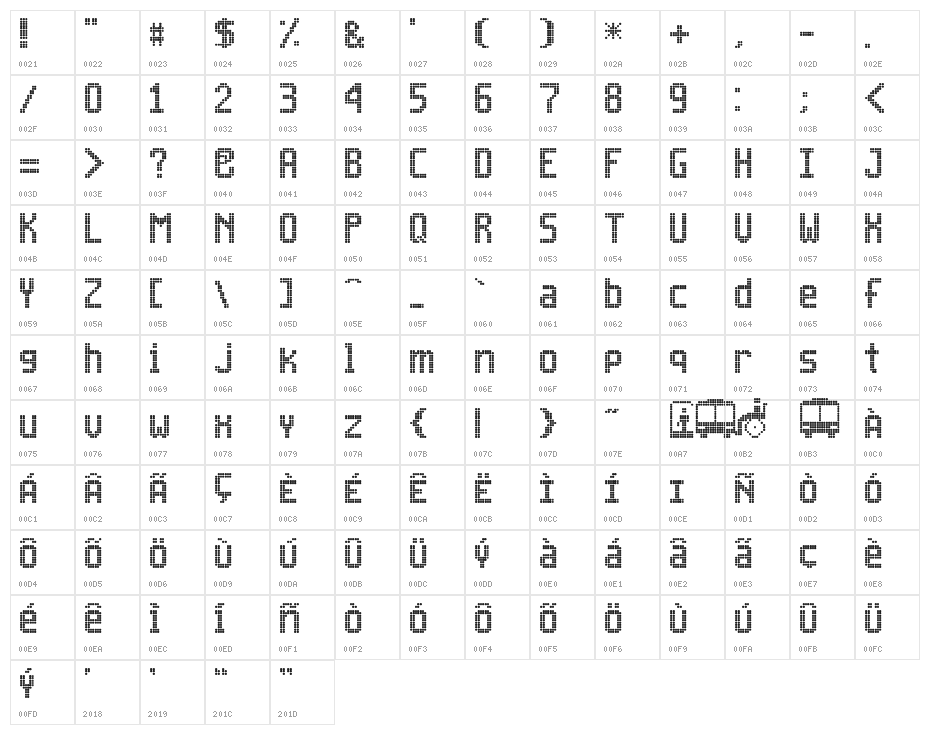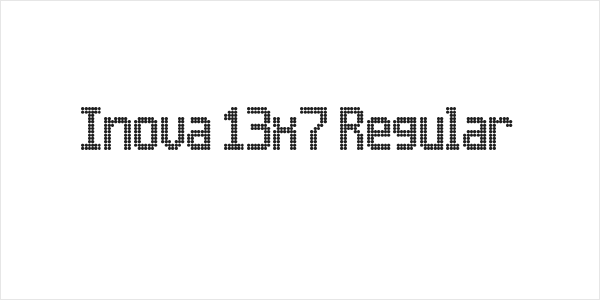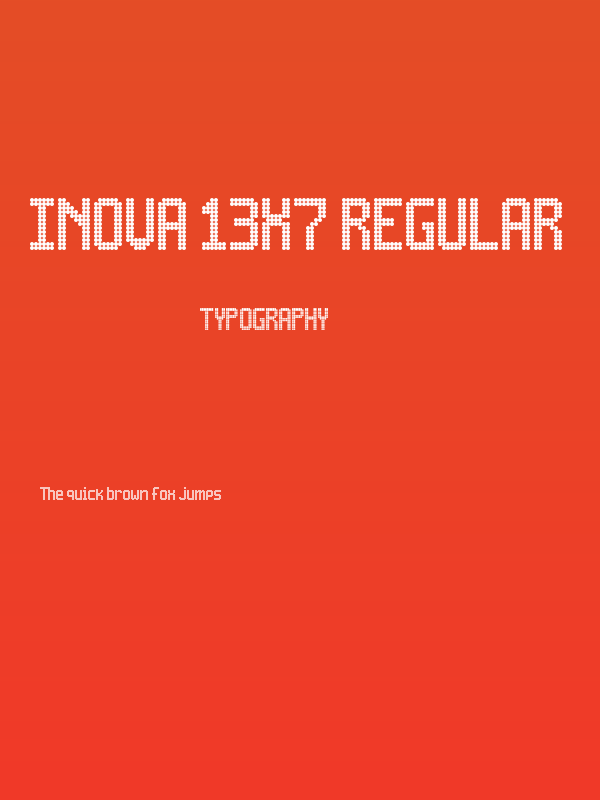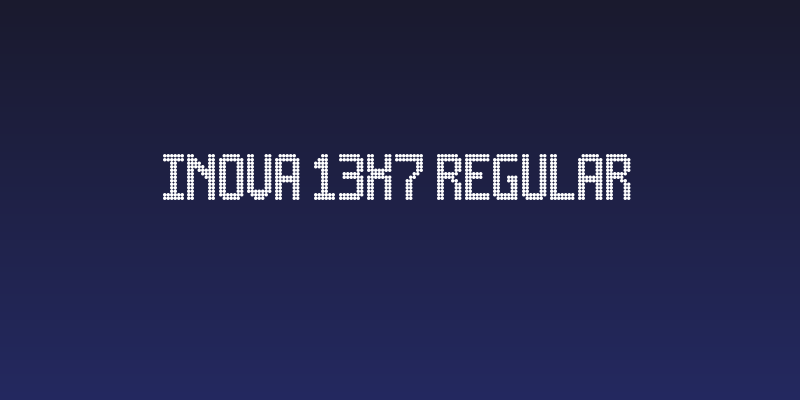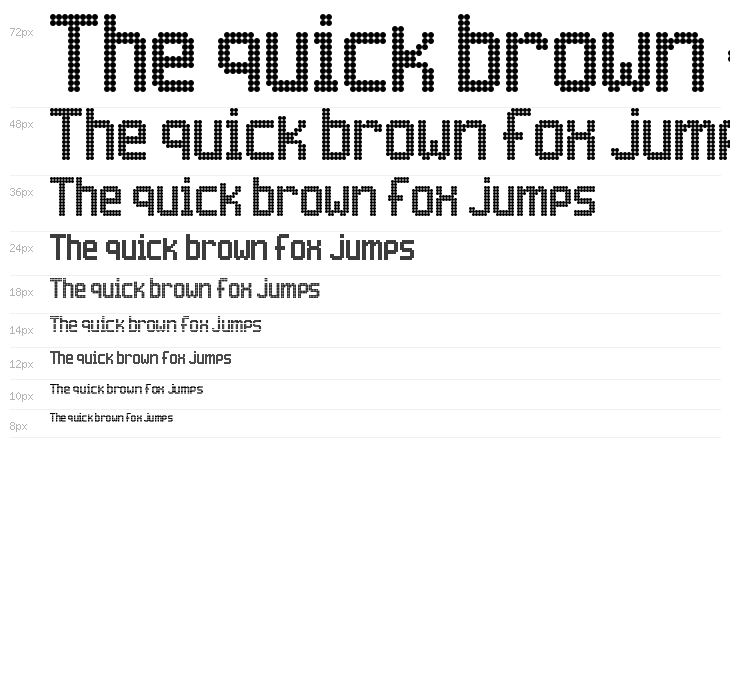
Inova 13x7 Regular Font
Inova 13x7 Regular Description
This font features a unique dot matrix design, where each character is composed of a grid of dots. The style is reminiscent of digital displays or LED screens, giving it a modern and technological feel. The characters are evenly spaced and maintain a consistent height, providing a uniform appearance across both uppercase and lowercase letters. Numbers and special characters follow the same dot pattern, ensuring cohesion throughout the font. This design is particularly striking for projects that require a futuristic or digital aesthetic.
| Use Case | Headlines, Logos, Digital Displays |
| Proposed Projects | Ideal for digital displays, tech-themed designs, electronic interfaces, and modern art projects. |